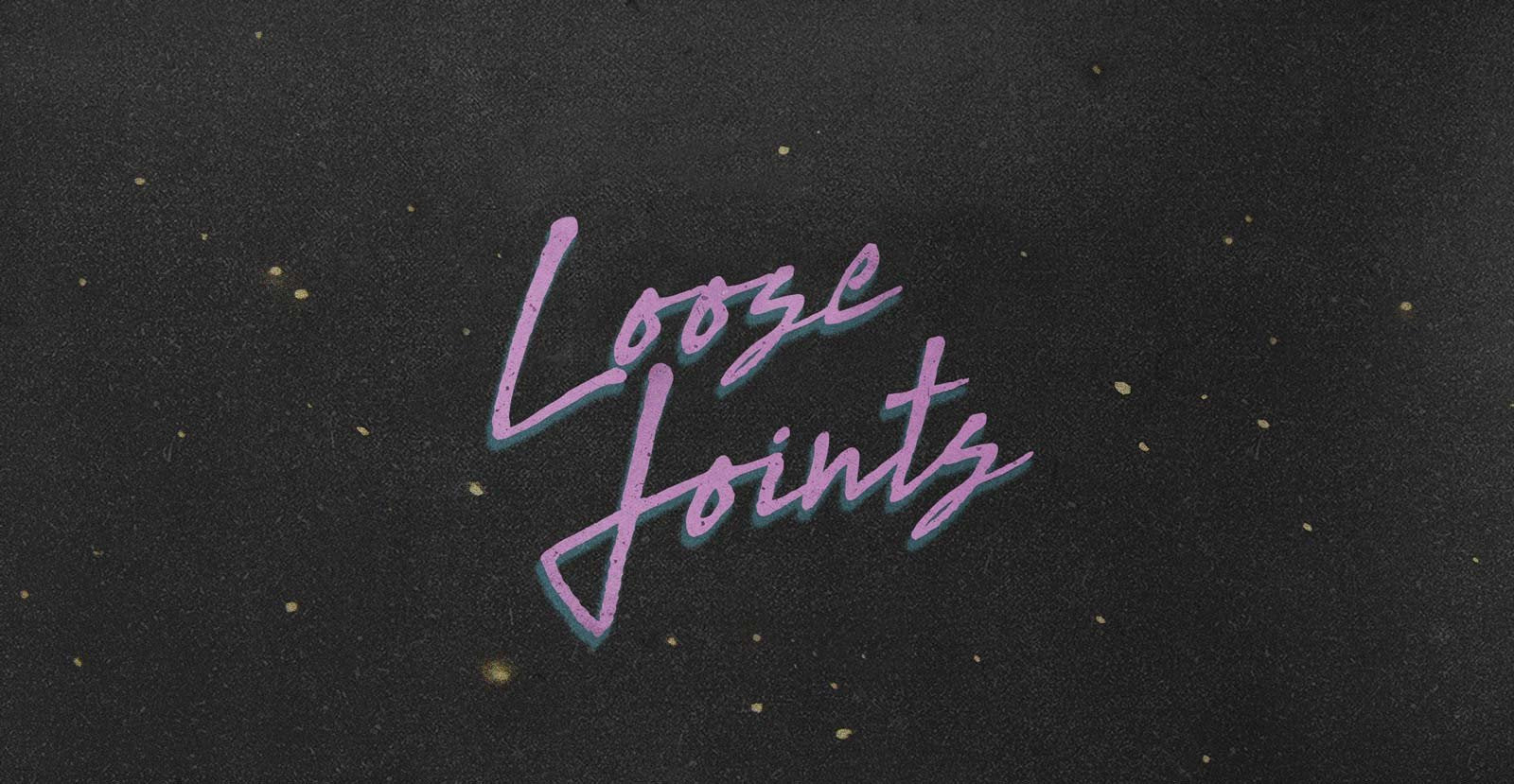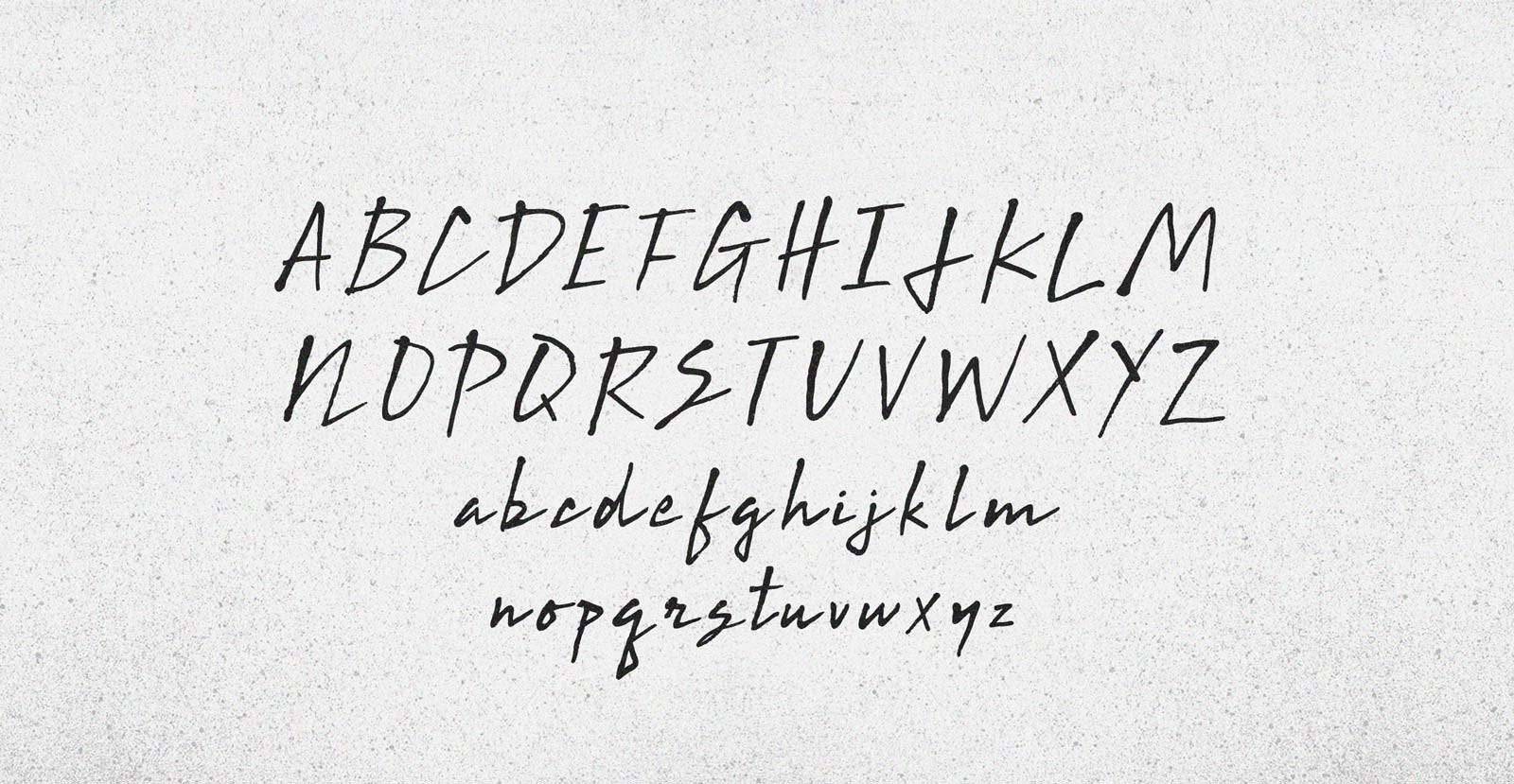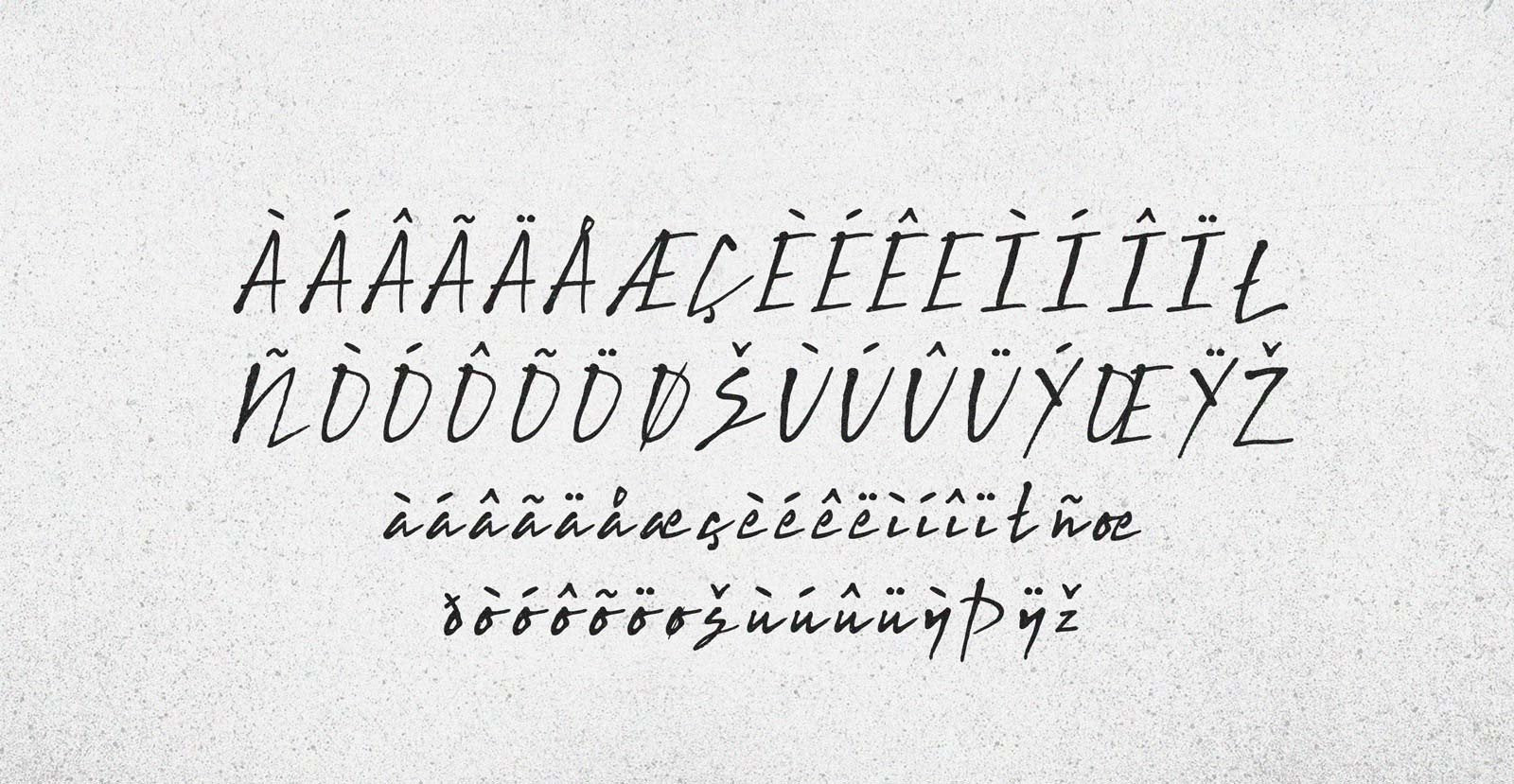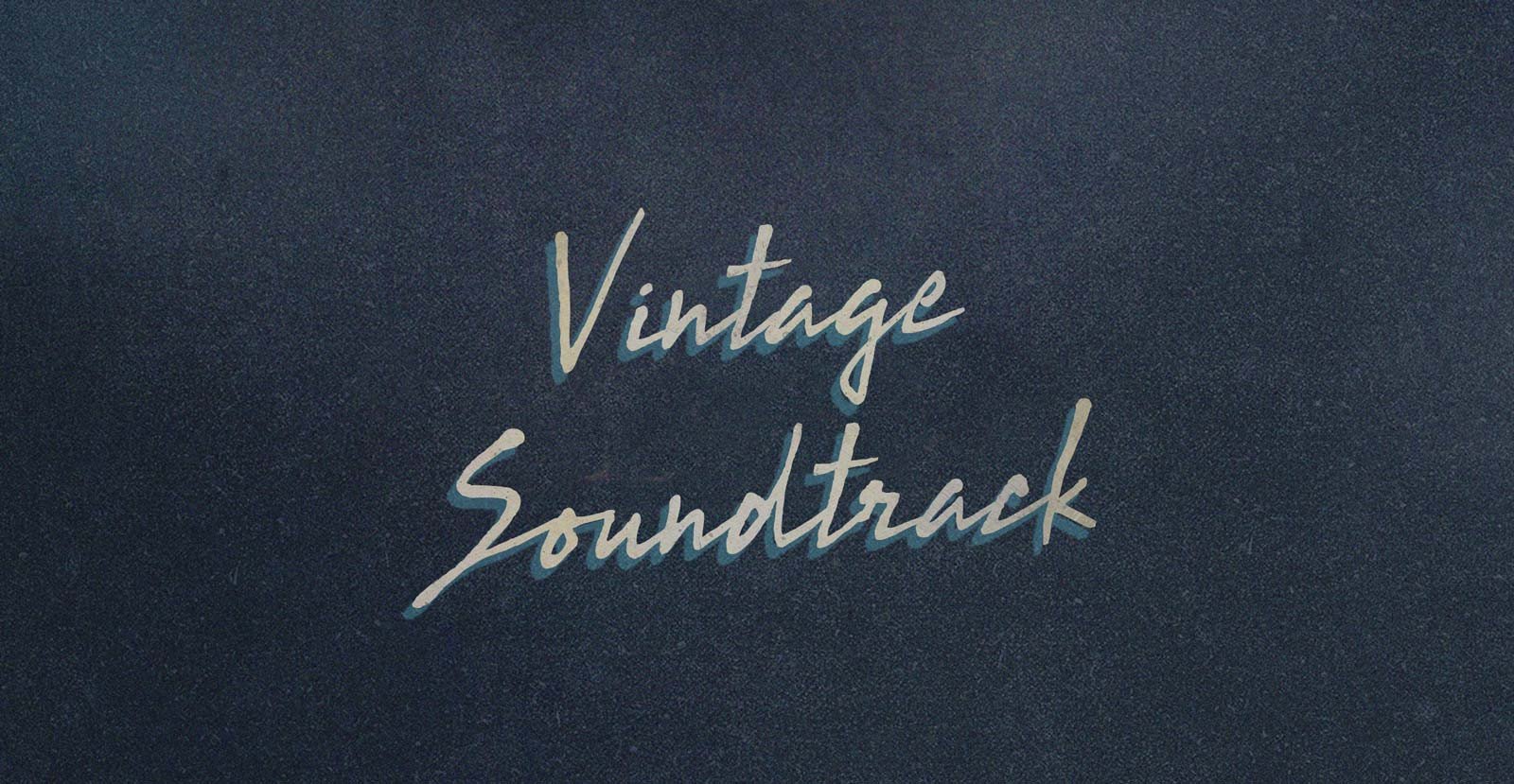
Loose Joints
When the break hits a Loose Joint, joints get loose. It's home-time for your hips and easy for your knees; shaking and twisting in every jump and slide.